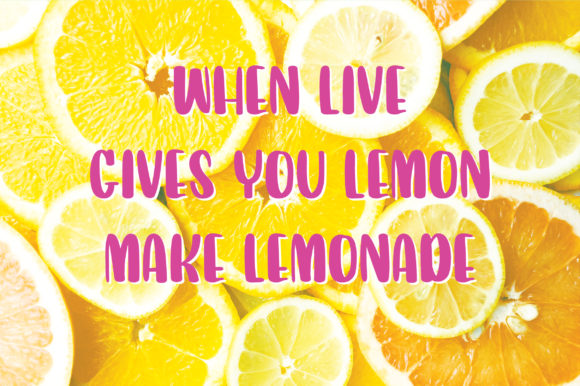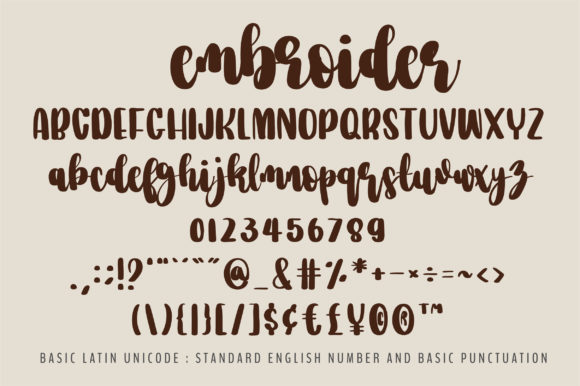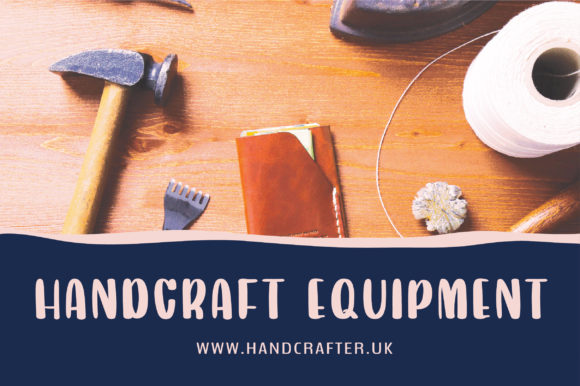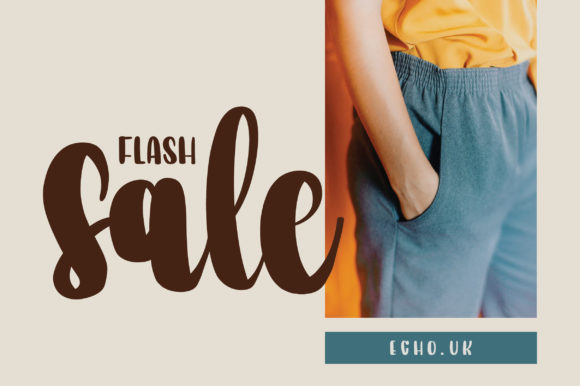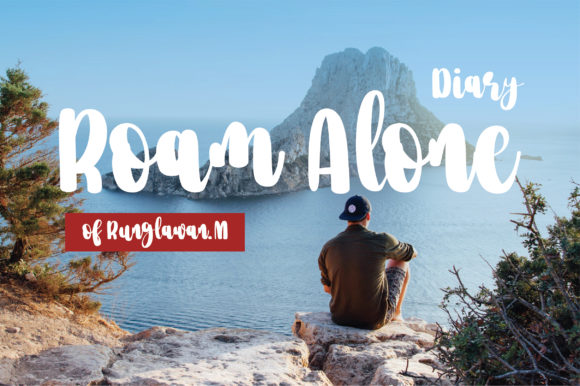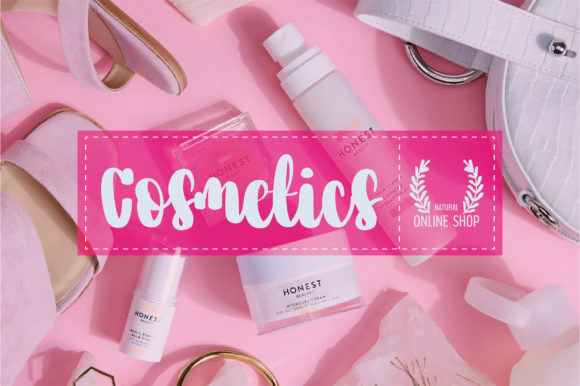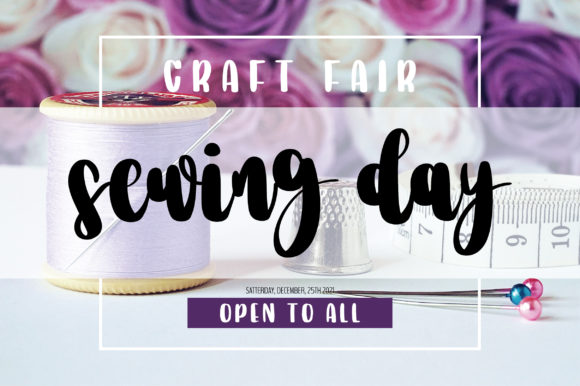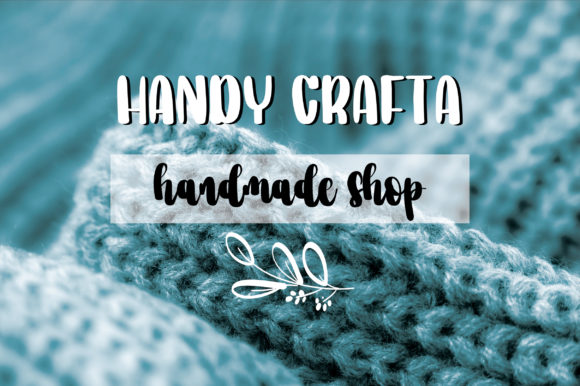
HomeScript FontsEmbroider Font Script Fonts Embroider Font FacebookXPinterestWhatsApp Embroider Font Poster 2 Embroider Font Poster 3 Embroider Font Poster 4 Embroider Font Poster 5 Embroider Font Poster 6 Embroider Font Poster 7 Embroider Font Poster 8 Embroider Font Poster 9 Embroider Font Poster 10 Embroider Font Poster 11 About Embroider Font Embroider is a sweet and cute handwritten font. It will add a romantic touch to any crafting project. DOWNLOAD ON CREATIVE FABRICAThis font is sold and delivered by Creative Fabrica. Font Canyon may earn a commission if you buy through this link. People also explored Ladoren Hoopella Font Belligart Font Mindate Font Gantol Font Rumble Tattoos Font Poem Script Dream Catcher Font Majorelle Font Thenicle Thin Font 310 0 TagsEmbroider Font Previous articleComebro FontNext articleSharifa Font LEAVE A REPLY Cancel reply Comment: Please enter your comment! Name:* Please enter your name here Email:* You have entered an incorrect email address! Please enter your email address here Website: Save my name, email, and website in this browser for the next time I comment. Personal Use Free Kaysan Personal Use Free Read more about this font Elliane Personal Use Free Read more about this font Christmas Diary Personal Use Free Read more about this font Goodline Font Personal Use Free Read more about this font BLOG The 10 Best Handwriting Fonts to Add Personality to Your Designs 10 of the Best Handwriting Fonts for Adding Personality to Your Designs There will undoubtedly be no other better choice than handwriting fonts to give... Best Fonts for T-Shirt Design – Top 2025 Picks Transform Your Website: Elevate Your Typography with 7 Best Web Font Generators Fonts That Capture the Spirit of New York City